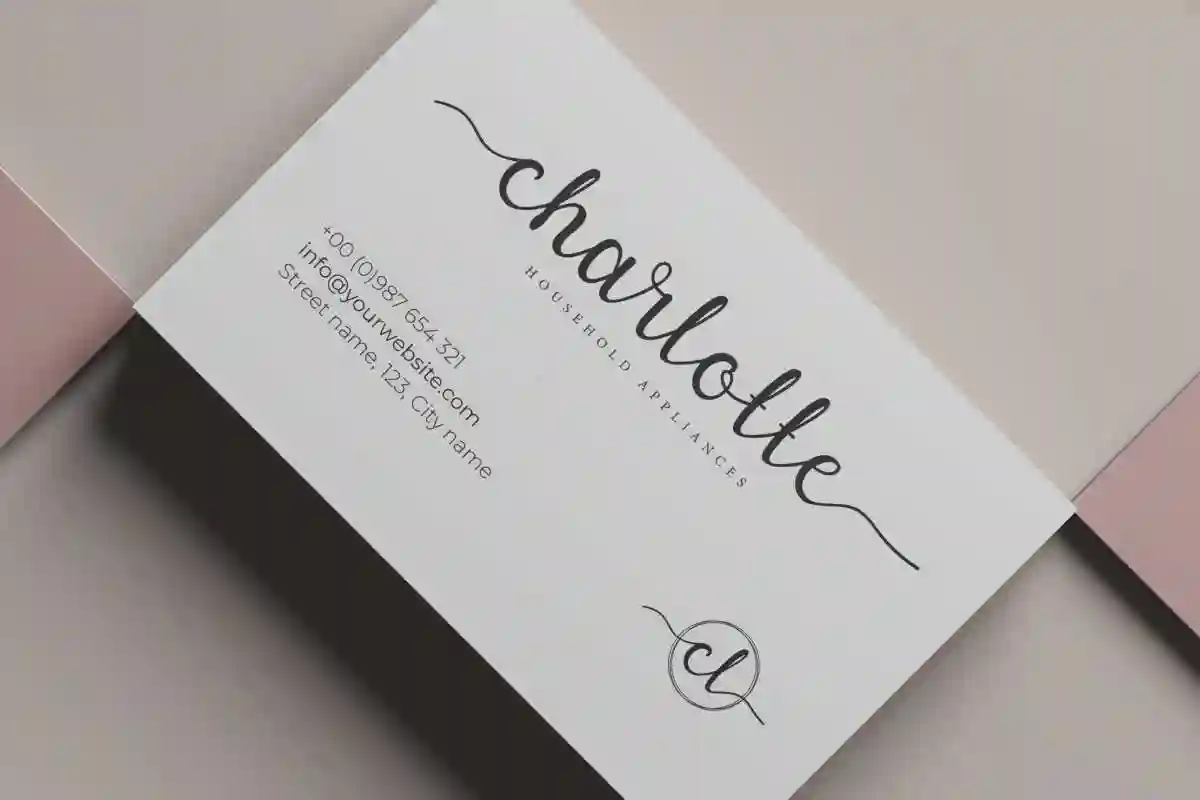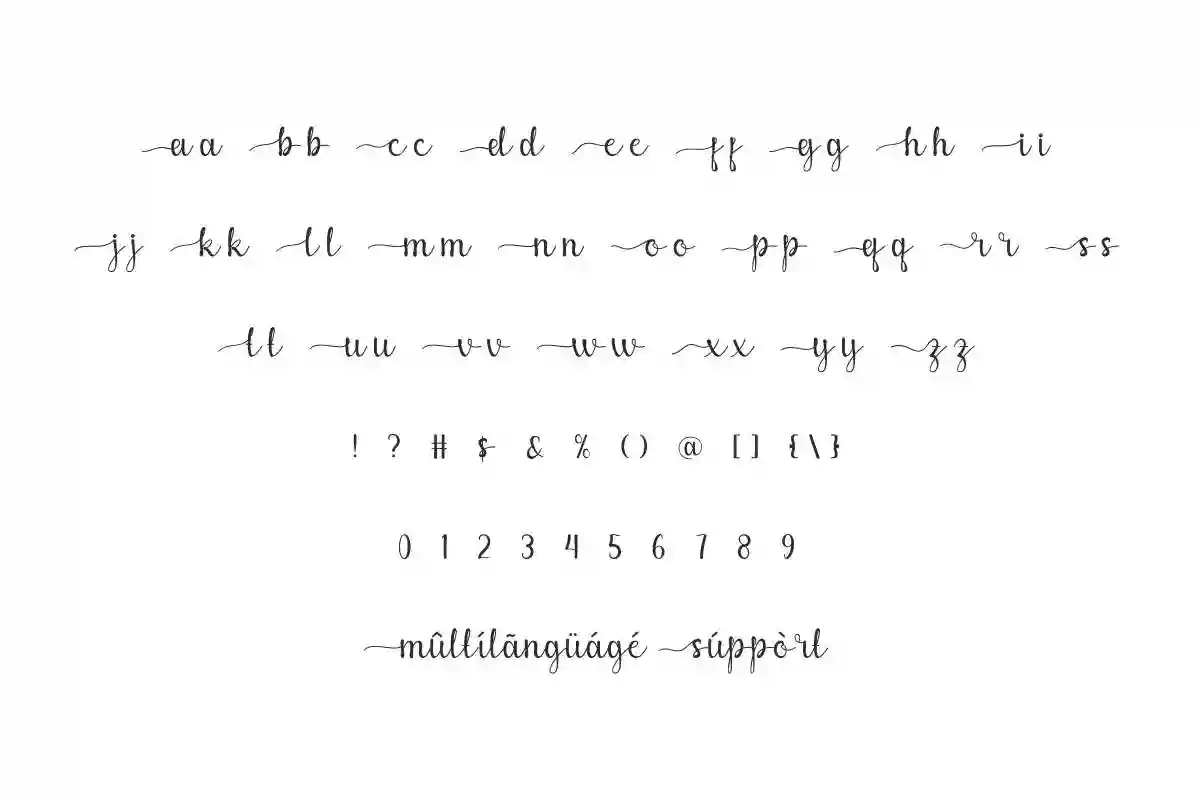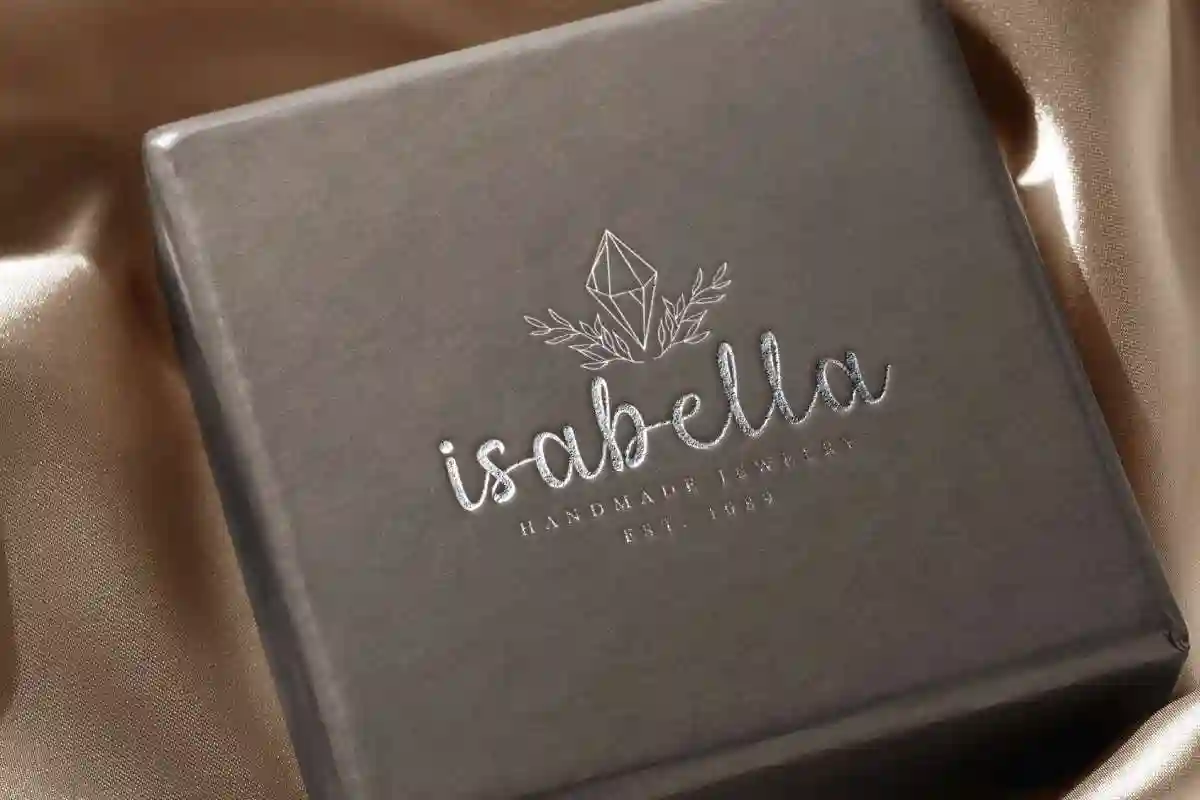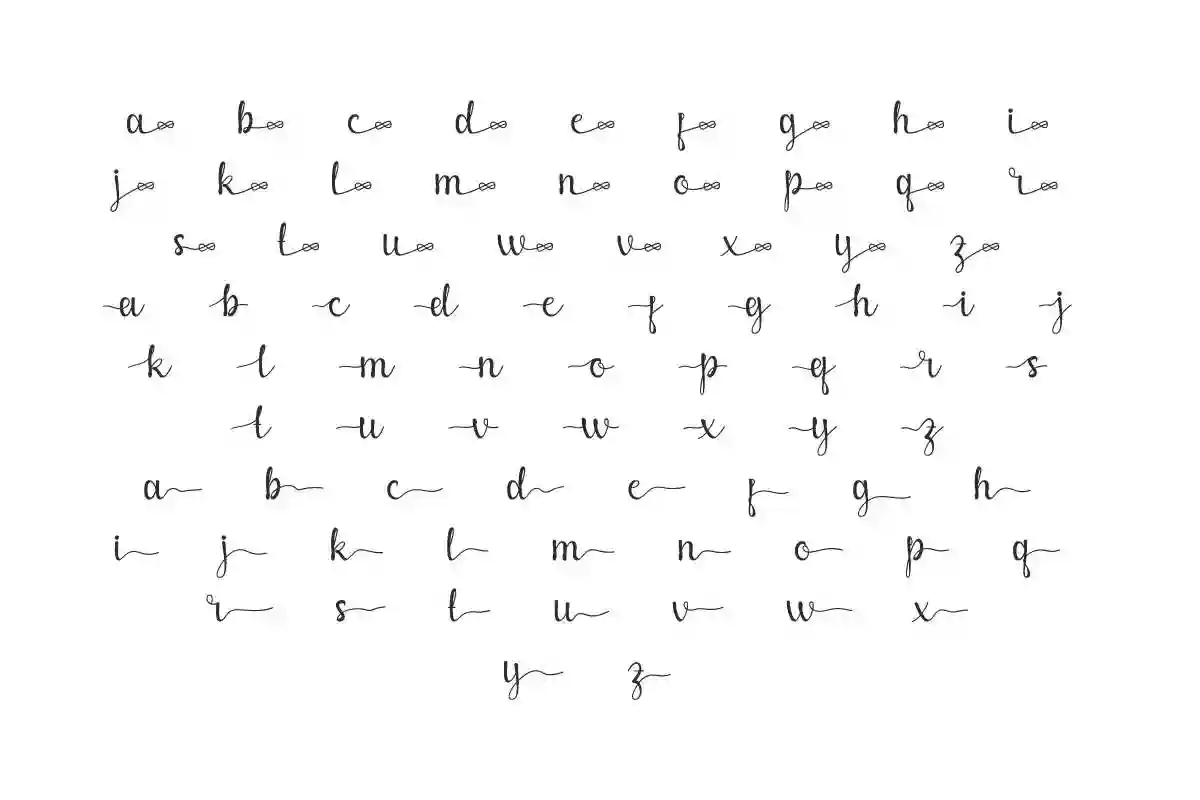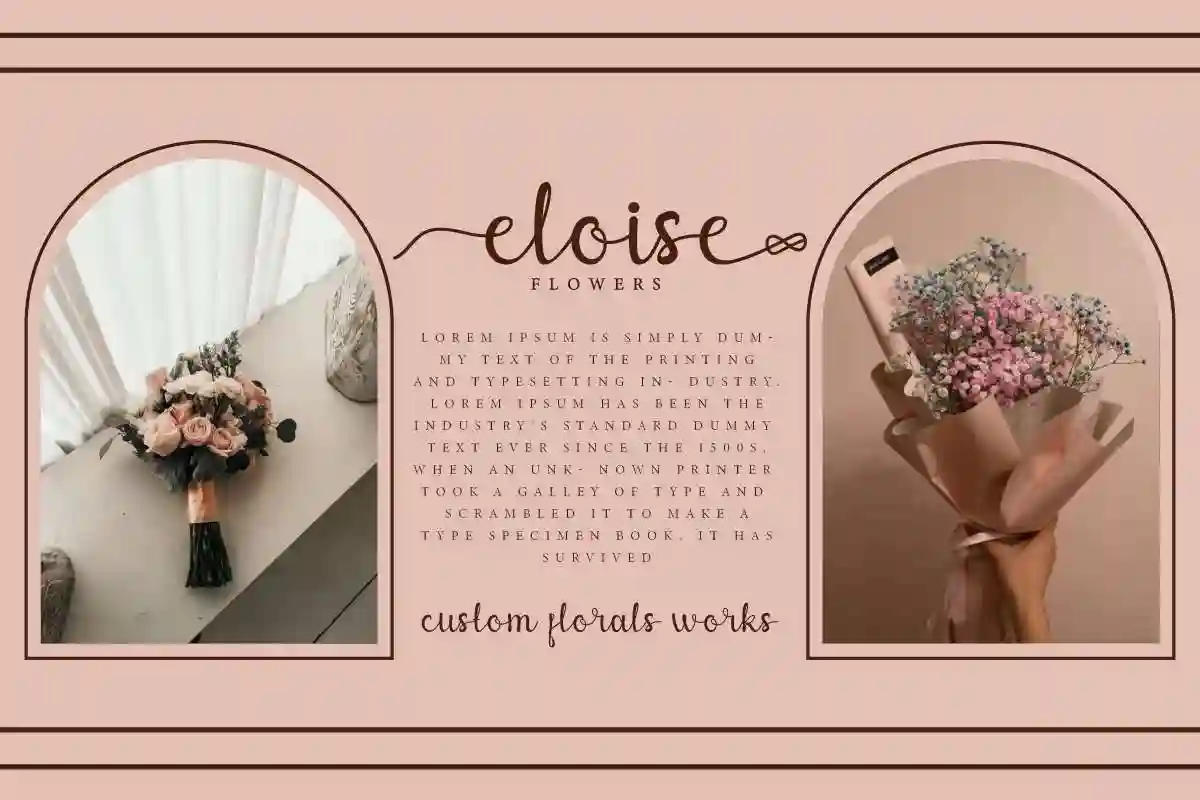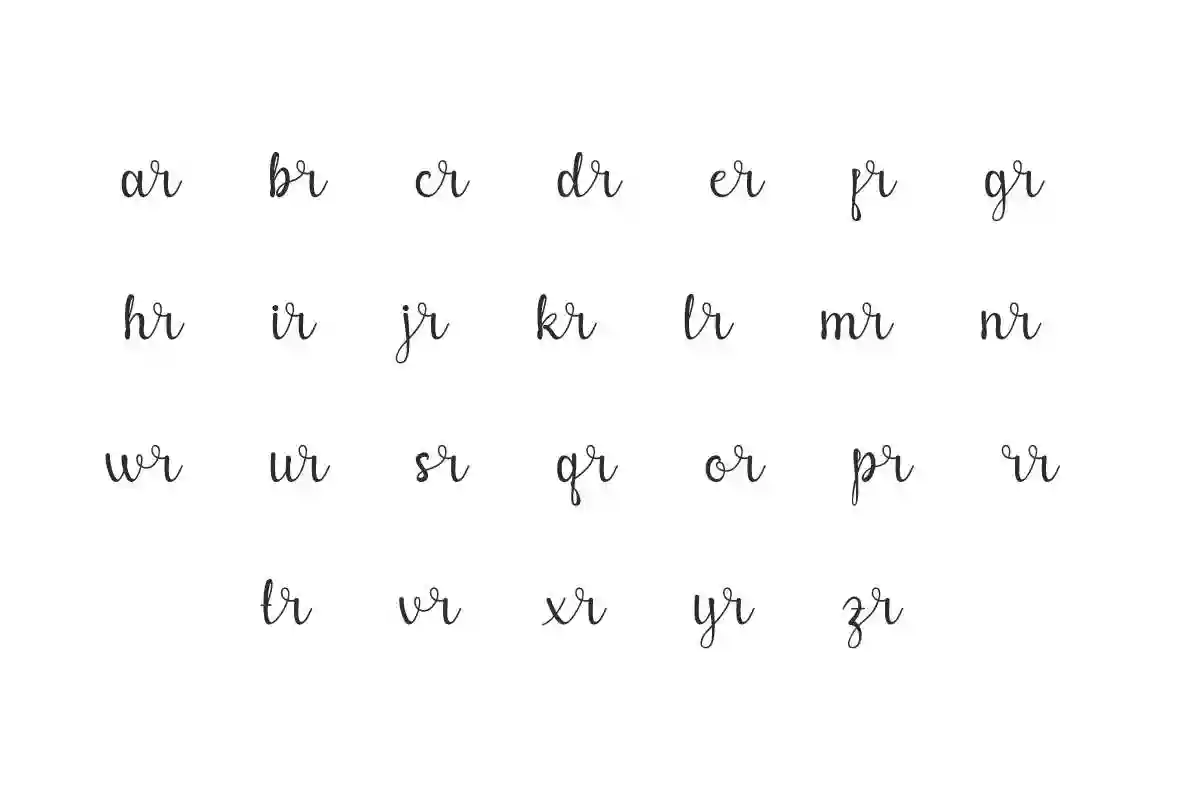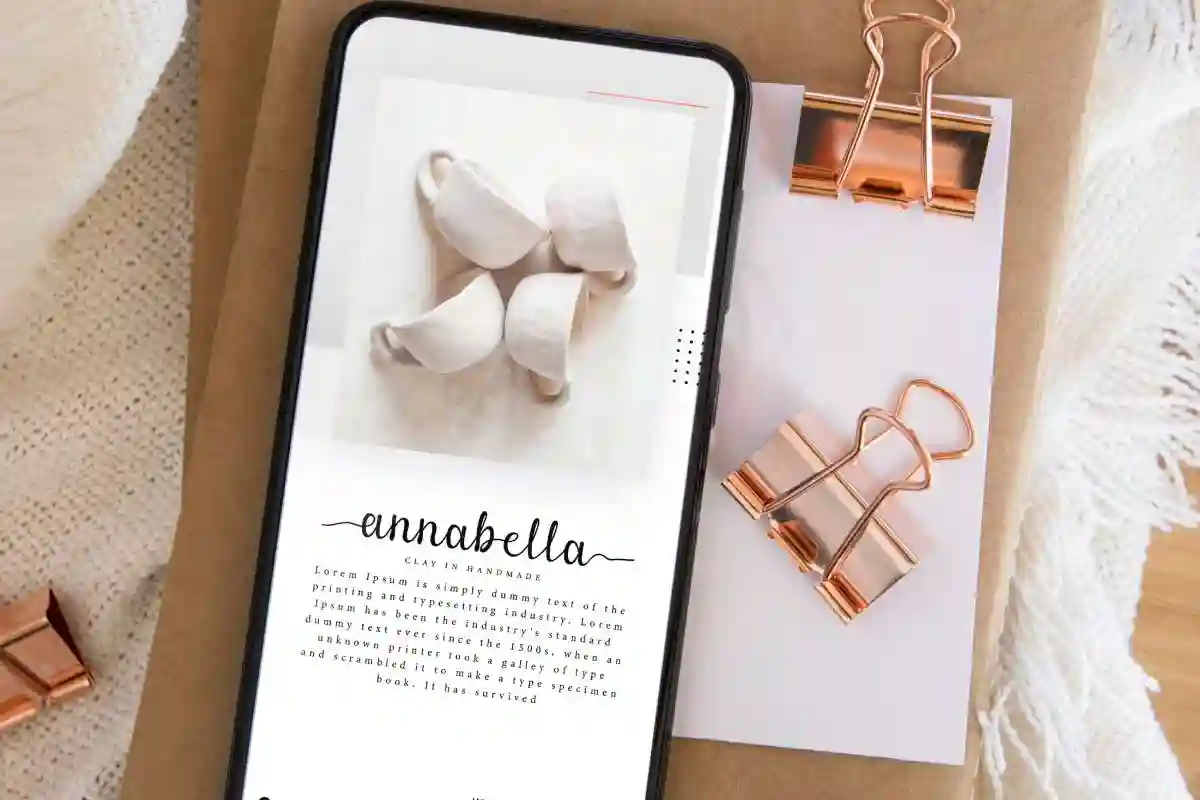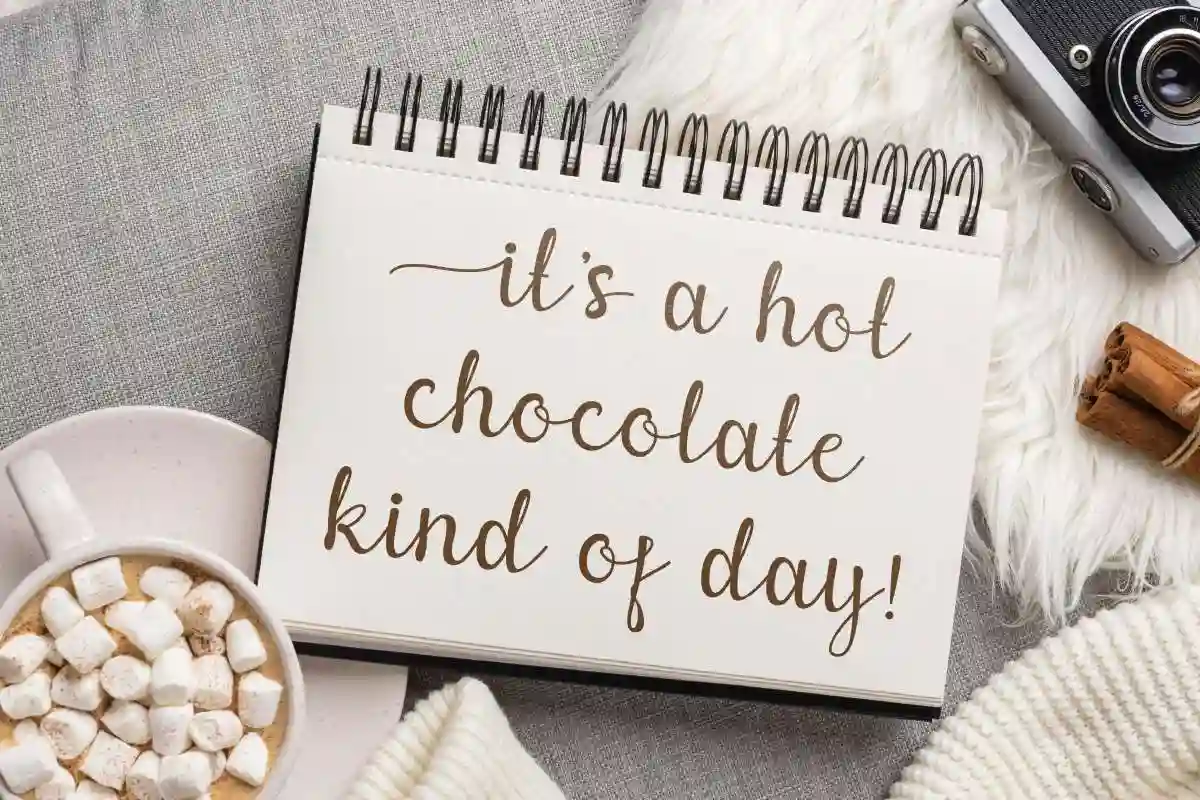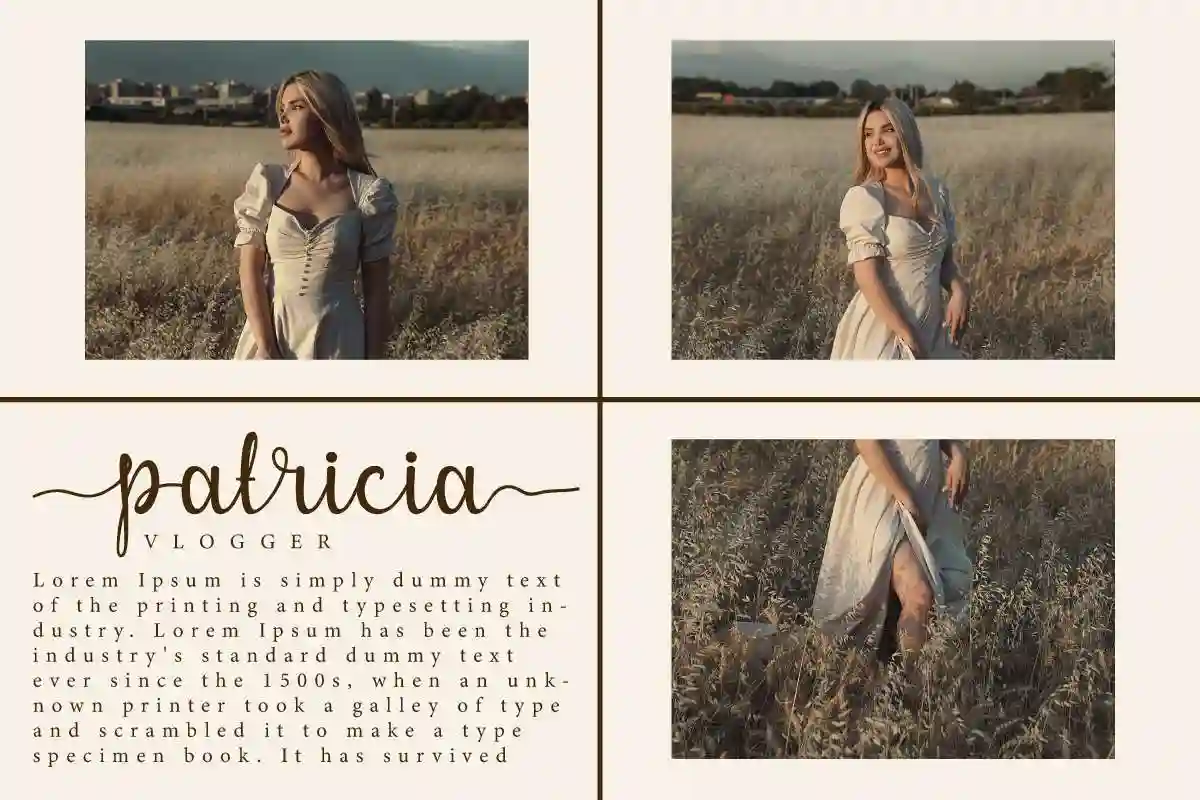
Putra Putri Font is a casual script that is able to present a side of elegance by NihStudio. This font will be suitable for jewelry, flower shop flyer, stationery, etc.
Putra Putri Font is a casual script font with beautiful look. It has a modern calligraphy and easy to read that will add to the beauty of your designs, such as apps, business card, cover, embossed design, flyer, invitation, magazine catalog, product packaging, quote, stationery, and much more!
Putra Putri Font comes with a full set of Uppercase and Lowercase Basic Characters, Number, Punctuation, Symbol. The unique thing about uppercase and lowercase letters here is that they look the same, but the uppercase letters have a special characteristic tail on the left side of each letter. This font also features alternate and ligature characters to add aesthetic value to the font. Use this for your business industry such as artist, florist, furniture, jewelry, photography, pottery, snack brand, etc.